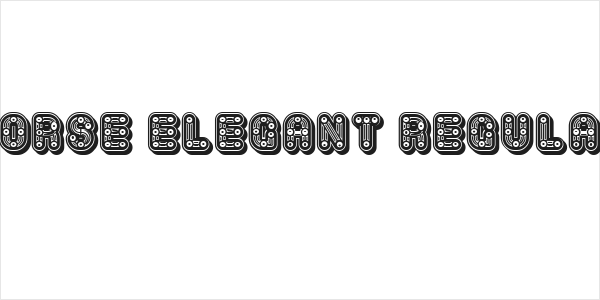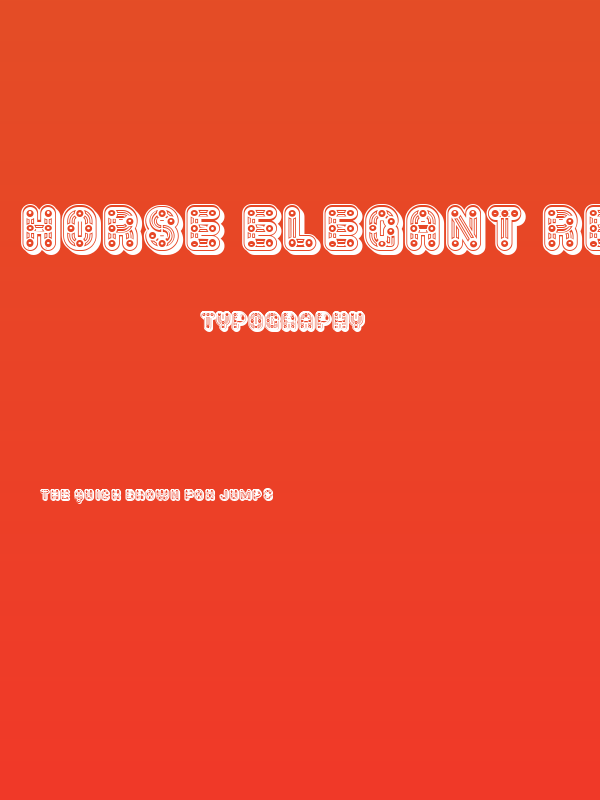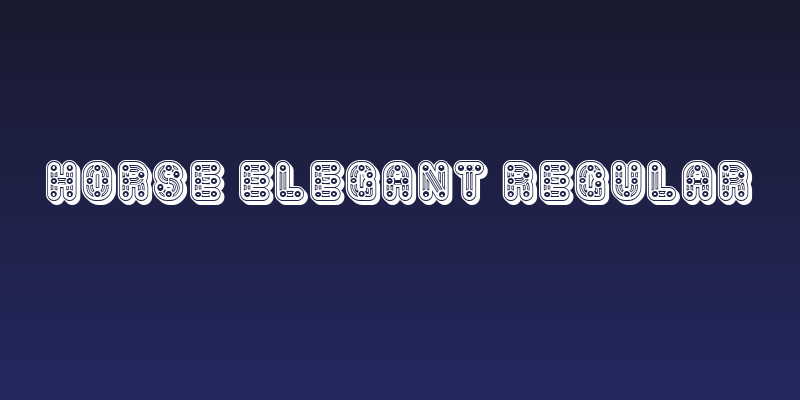
Horse Elegant Regular Font
Horse Elegant Regular Description
This font features a bold and decorative style with intricate patterns within each character. The letters are outlined with a thick black border, and the interior is filled with a series of geometric shapes and lines, creating a complex and eye-catching design. The uppercase and lowercase letters maintain a consistent style, ensuring uniformity across the alphabet. The numbers and special characters follow the same decorative pattern, making them stand out. This font is ideal for projects that require a unique and artistic touch, as it combines both modern and vintage elements in its design.
| Proposed Projects | Ideal for branding, posters, album covers, and any project that requires a standout, artistic typeface. |